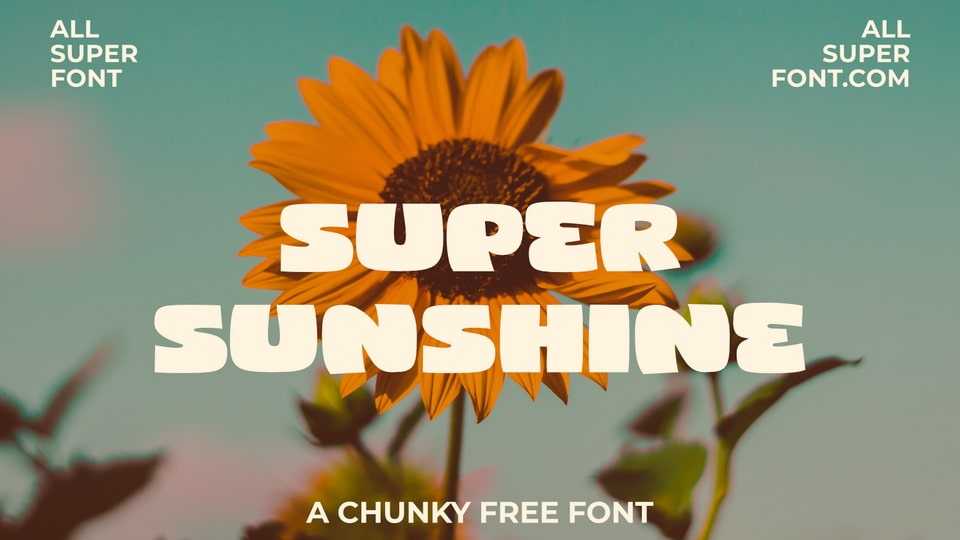
Download Super Sunshine font, a playful and chunky cartoon typeface that exudes vibrant energy and personality. Super Sunshine font is crafted with thick, rounded strokes and exaggerated proportions, creating a lively typographic experience that captures attention and sparks joy.